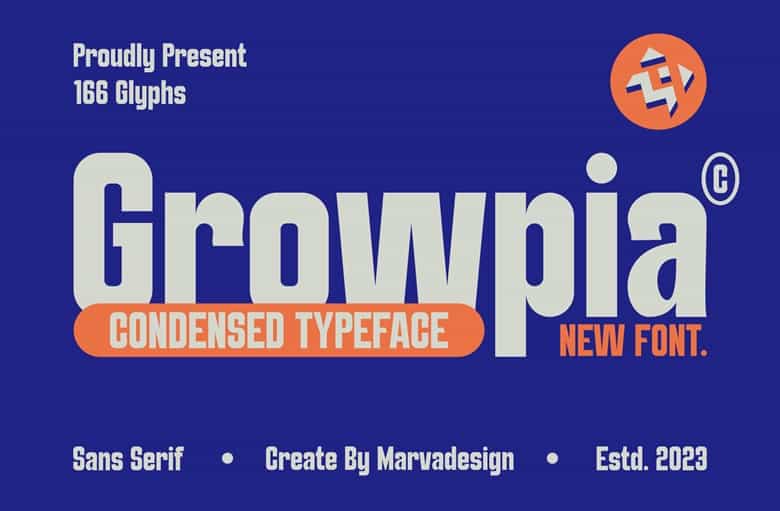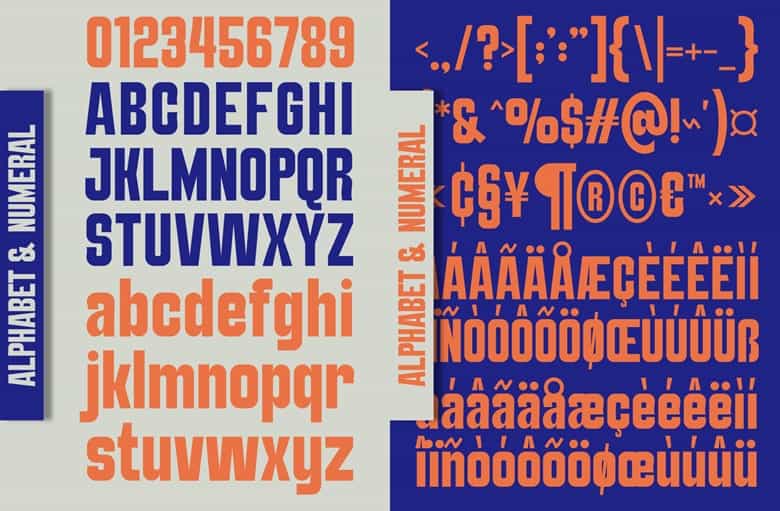
Growpia is an elegant and modern bold condensed sans serif typeface. The strong presence and cherry style that is Growpia will suit any project. This is a great font for making a statement in headlines, titles, or logos, as it’s so confidently done.